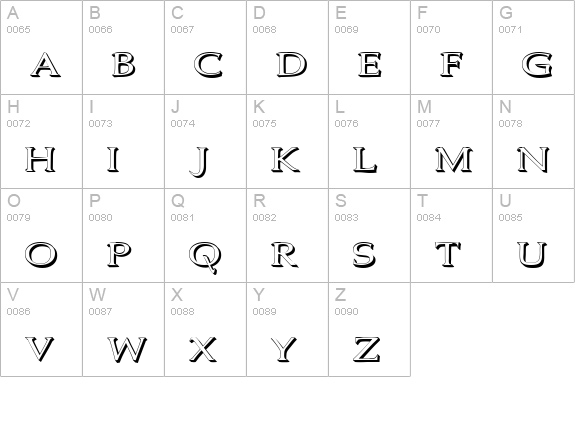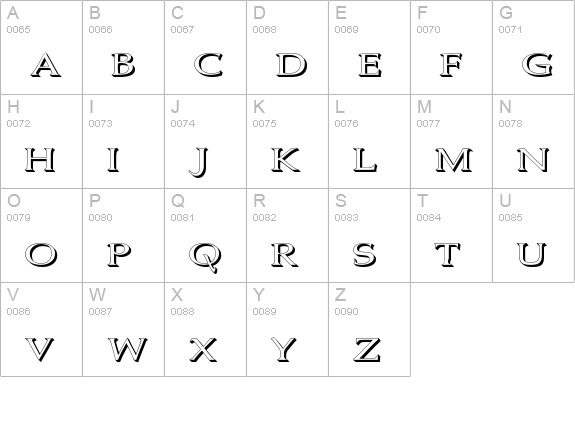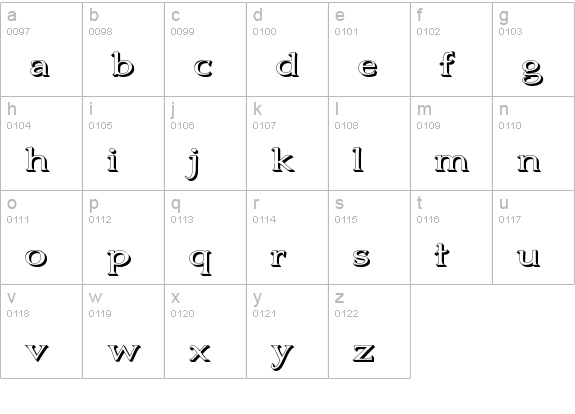
Jhunwest 3D Font Details
Jhunwest 3D font is a stunning and modern typeface that brings a dynamic and three-dimensional look to any design project. This font exudes creativity and innovation with its bold and eye-catching 3D effect, making it perfect for titles, headlines, and other display purposes. The intricate details and sleek lines of Jhunwest 3D font add a touch of sophistication and style to any design. The best part is that Jhunwest 3D font is available for free download at FontsMarket.com. This means that you can easily access this unique and striking font to elevate your designs without any cost. Whether you're working on a poster, website, or branding project, Jhunwest 3D font will surely make a statement and leave a lasting impression on your audience. Don't miss out on this fantastic opportunity to enhance your designs with the free Jhunwest 3D font from FontsMarket.com!